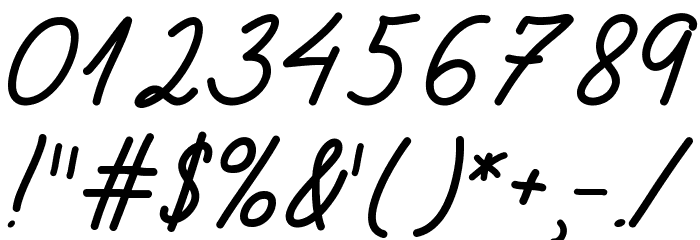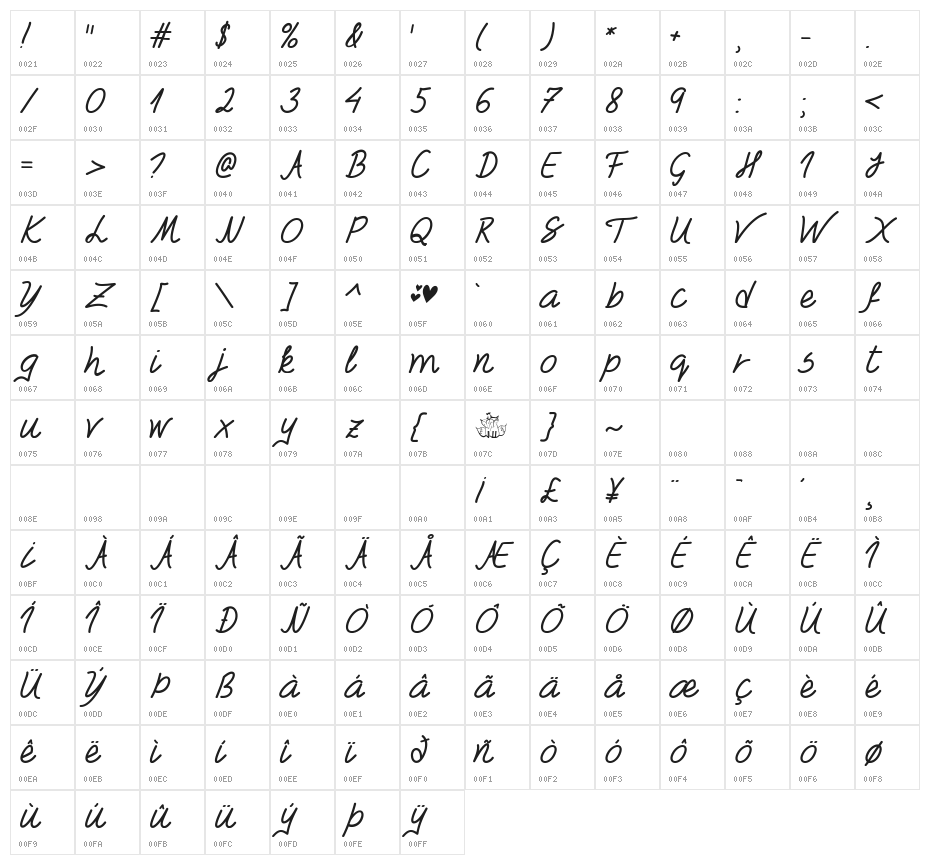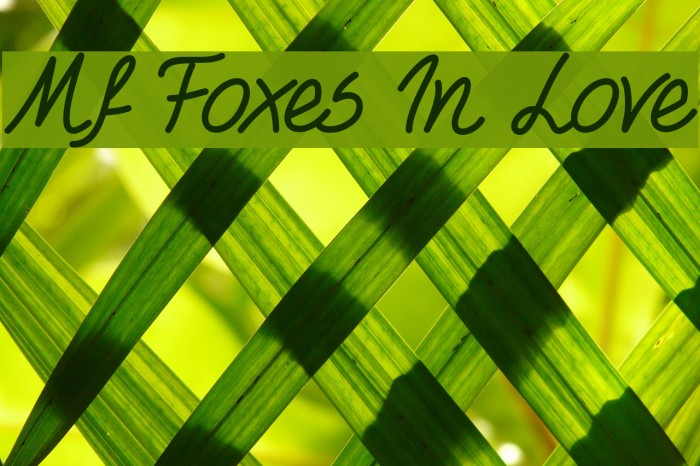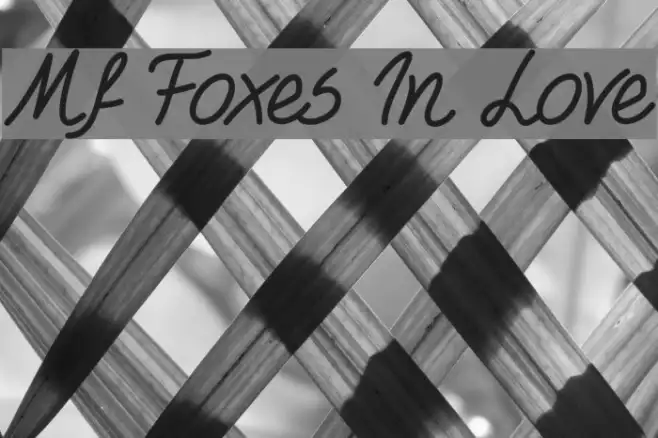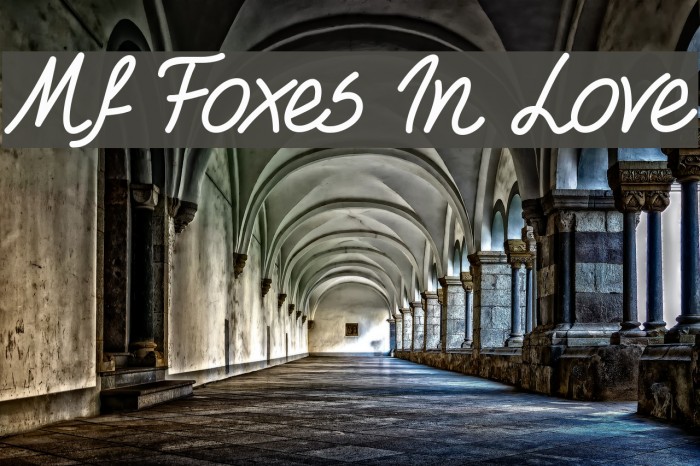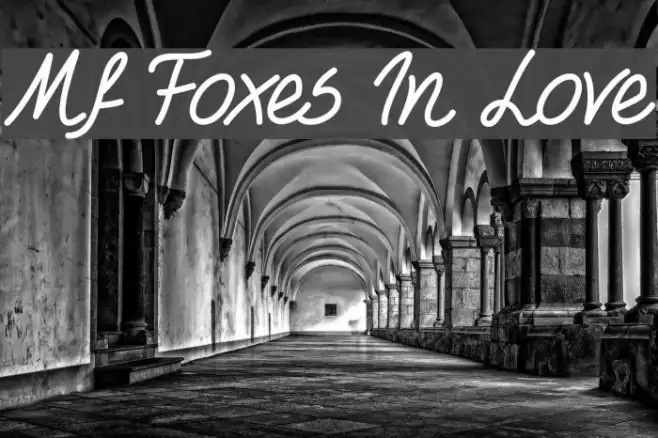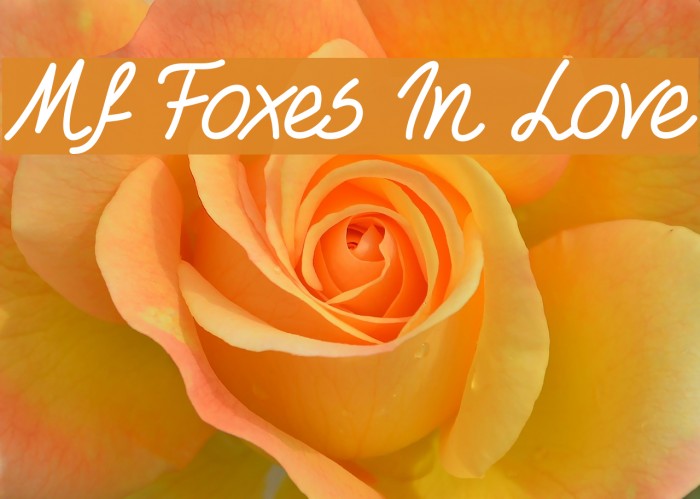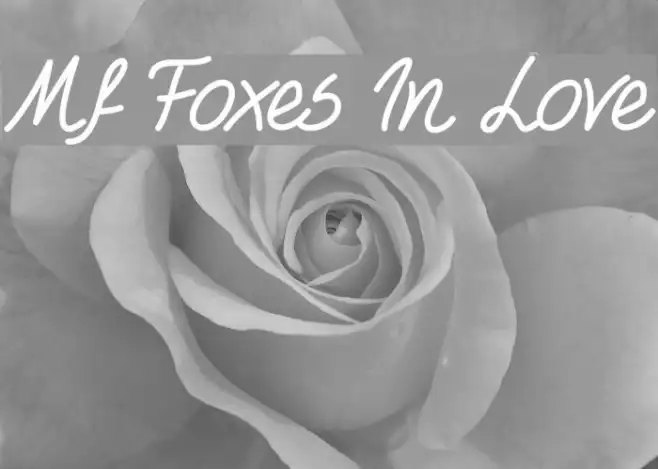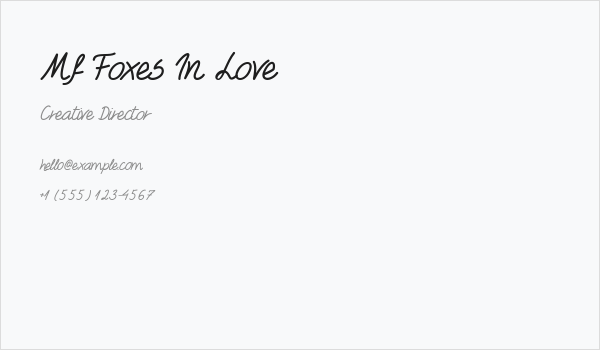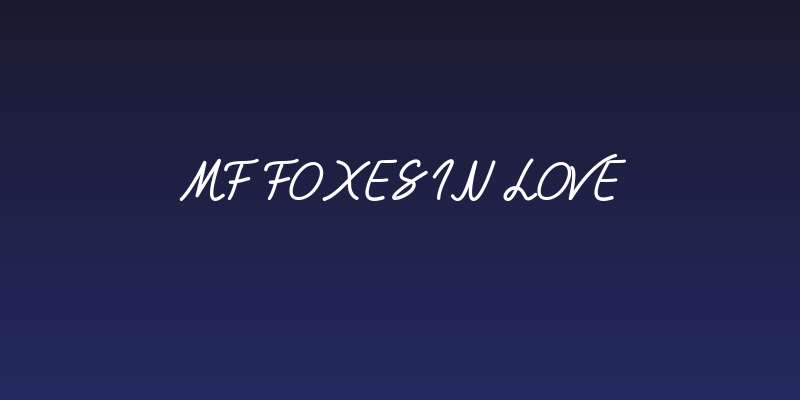
Mf Foxes In Love Font
Mf Foxes In Love Description
This font features a playful and casual script style, characterized by its fluid, handwritten appearance. The letters are connected, creating a sense of continuity and flow. The strokes are moderately thick, providing a bold presence without being overwhelming. The uppercase letters maintain a consistent height, while the lowercase letters exhibit a slight slant, adding to the informal and friendly feel. The numerals are clear and legible, matching the overall style of the alphabet. Special characters are well-integrated, maintaining the same playful aesthetic. This font is ideal for projects that require a personal touch, such as invitations, greeting cards, or branding for creative businesses.